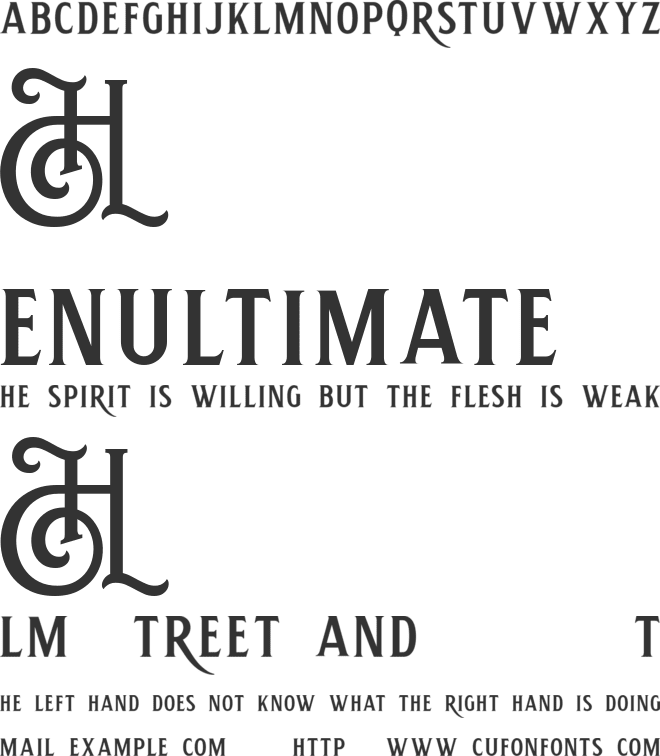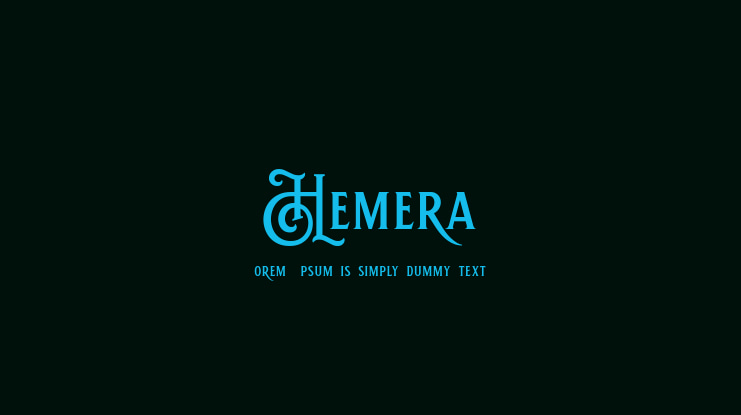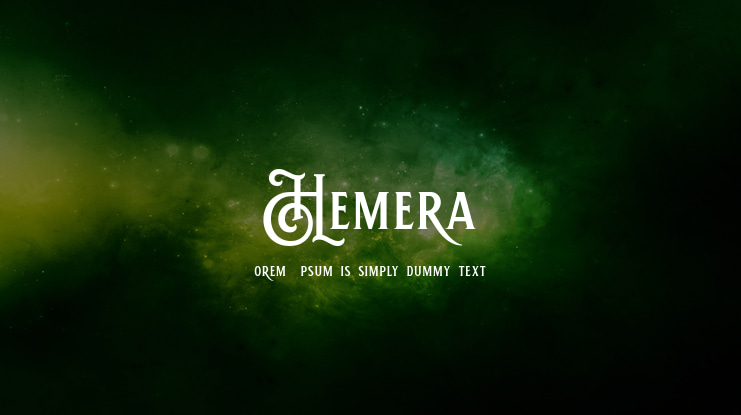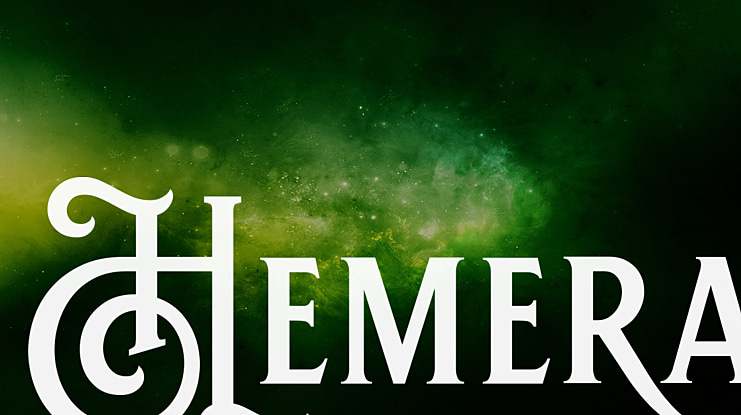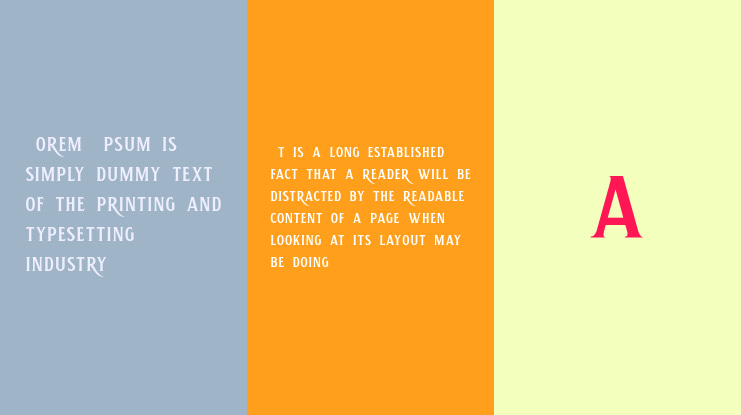
Hemera II DEMO Font
Please welcome Hemera II. A sophisticated vintage victorian era fonts, inspired from the old advertising and classic sign back in circa 1800 - 1900s. Perfectly fit for your vintage vibes and classic touch on any branding works. Logo, badges, label, headline, retro decoration, you name it.